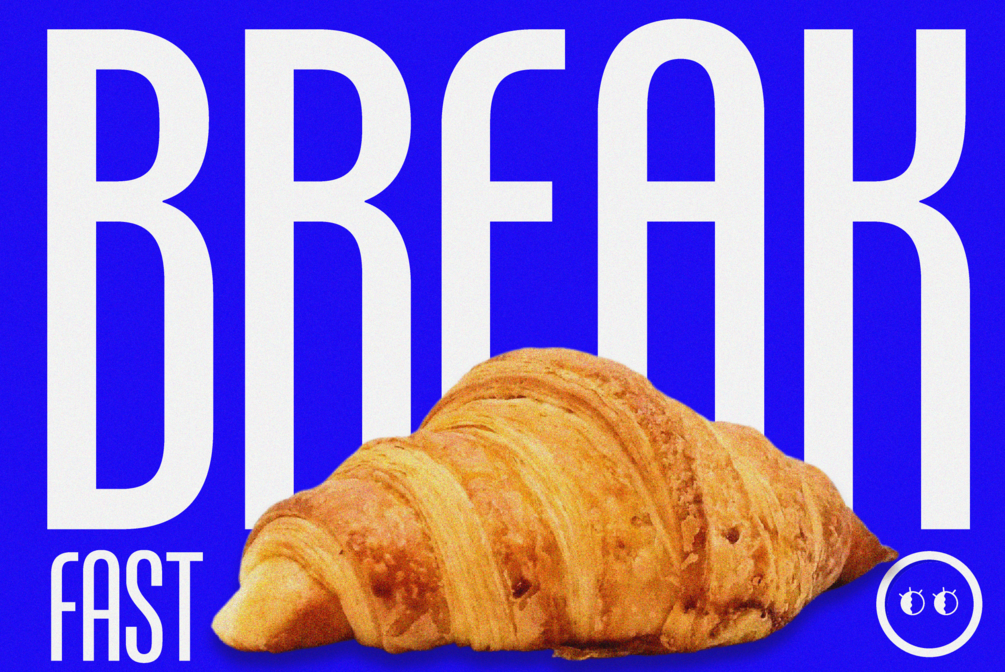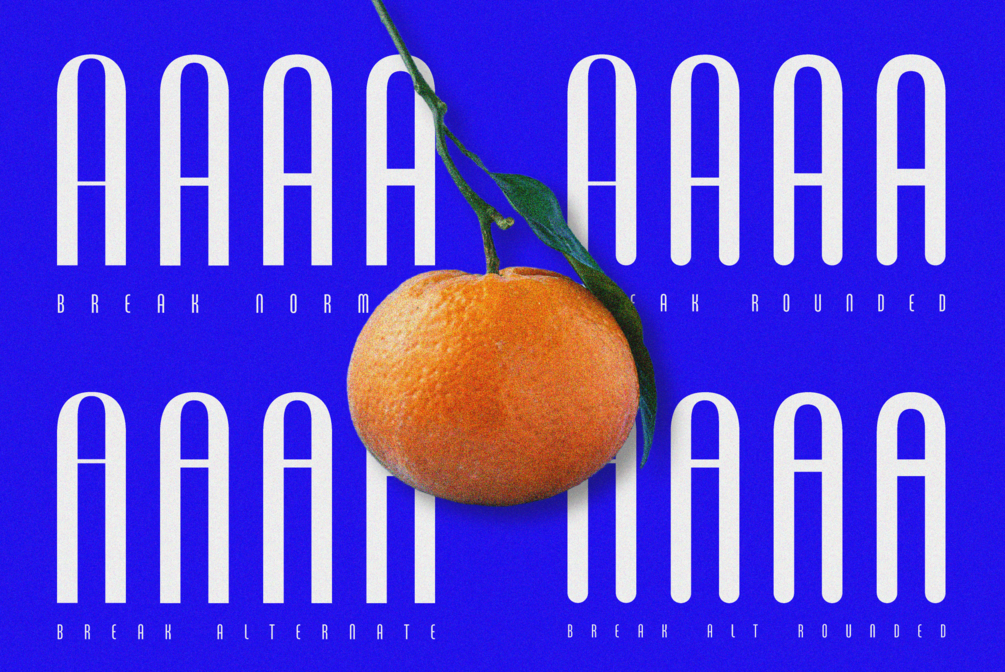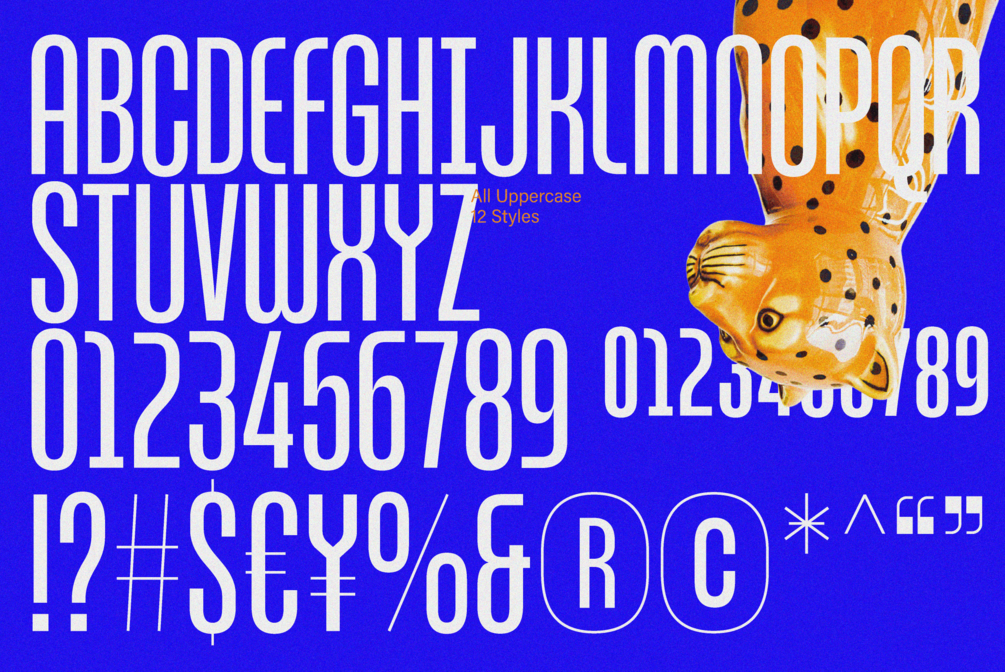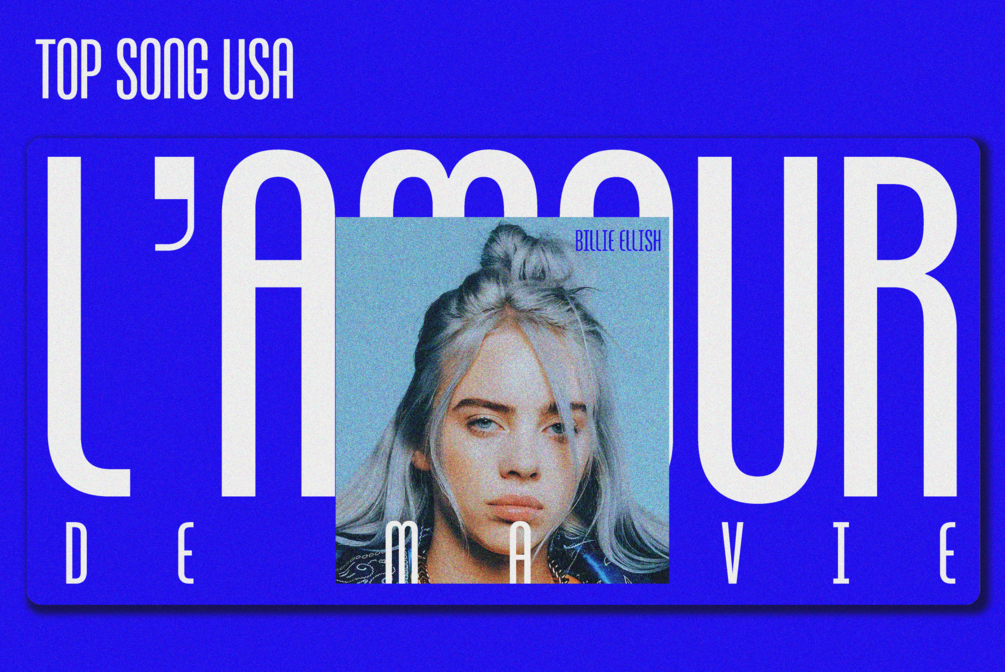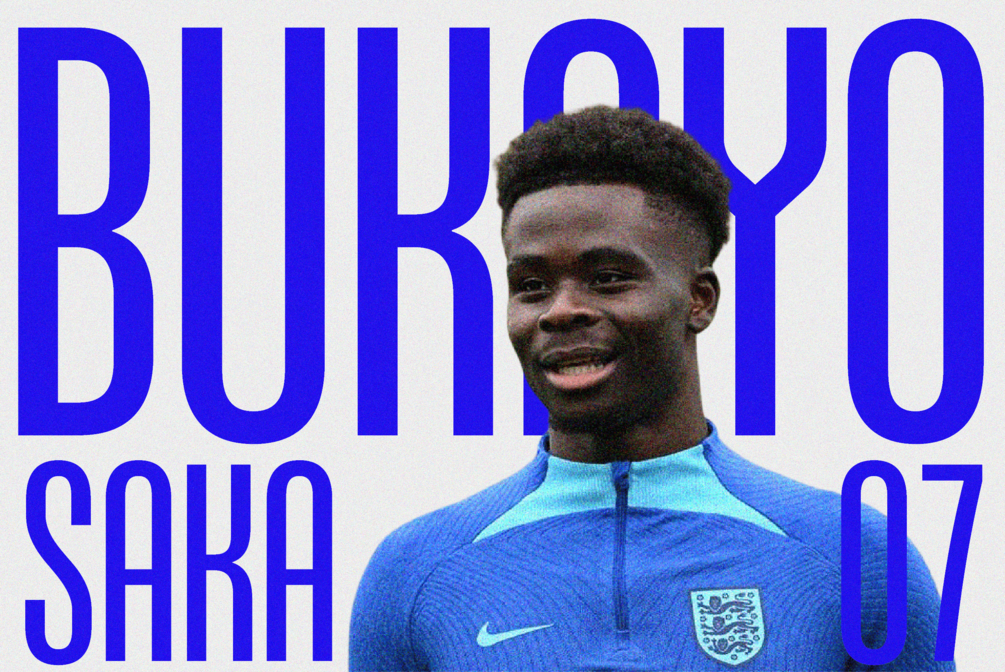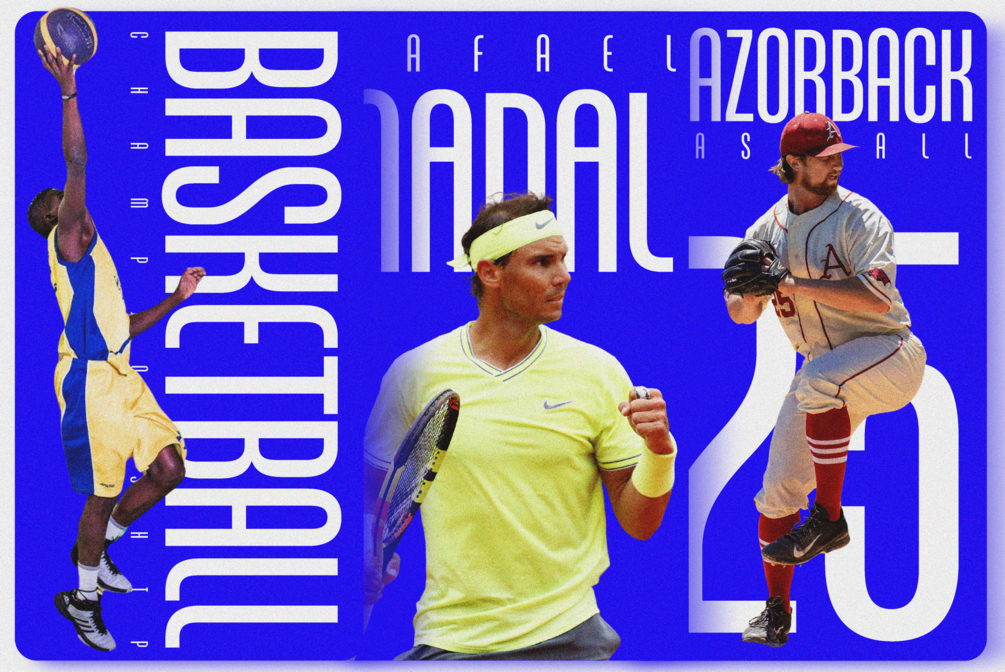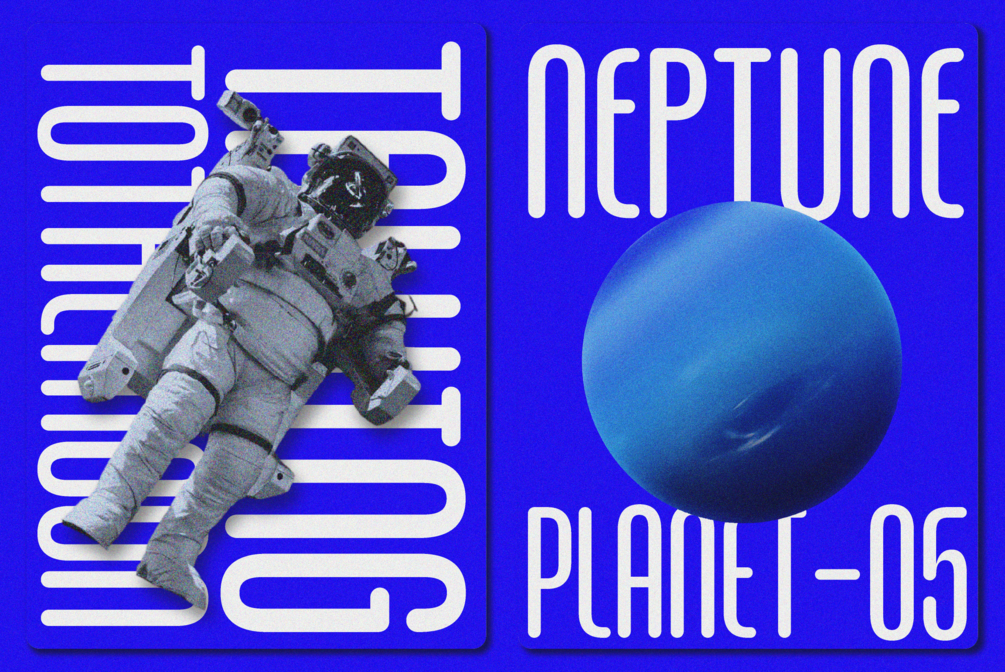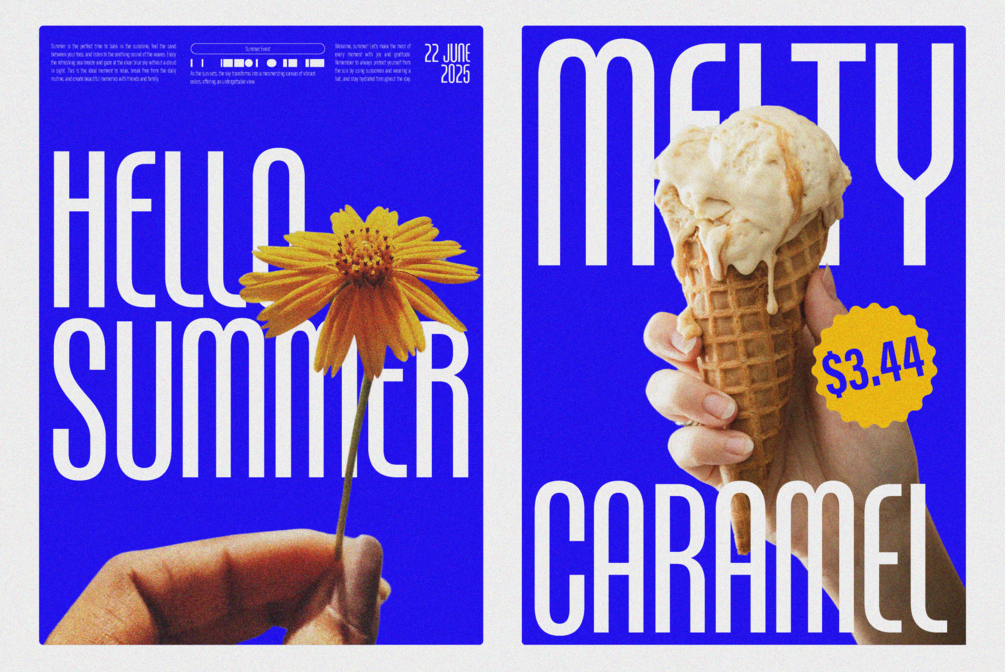
ZT Break Fast
Introducing ZT Break Fast, a sans condensed font that combines modern aesthetics with exceptional versatility. Expertly crafted, ZT Break Fast comes in four unique styles: normal, normal rounded, alternative with higher vertical line height, and alternative rounded. Each style is available in four weights: thin, extra light, light, and regular, giving designers the freedom to explore their creativity.
• Normal: A classic style perfect for any type of project.
• Normal Rounded: Soft edges that add a friendly and approachable feel.
• Alternative with Higher Vertical Line Height: Ideal for a sleeker and more elegant look.
• Alternative Rounded: A combination of elegance and warmth in one package.
ZT Break Fast is ideal for a wide range of design needs, from branding and editorial work to web design. With its modern aesthetic and superior functionality, this font will enhance any design project. Carefully designed with high attention to detail, ZT Break Fast ensures a professional and stunning result.